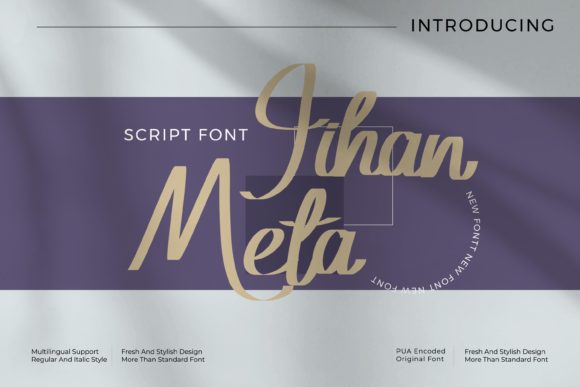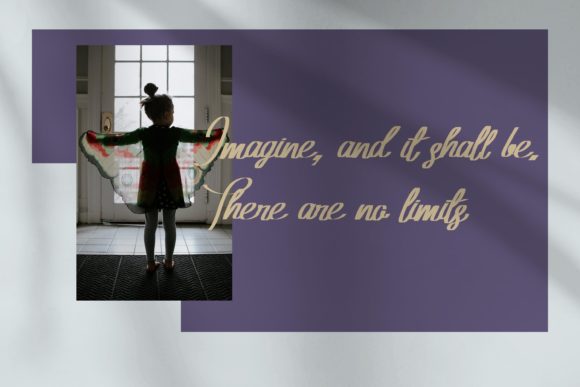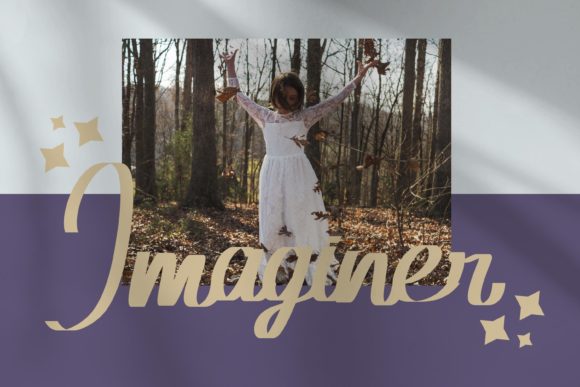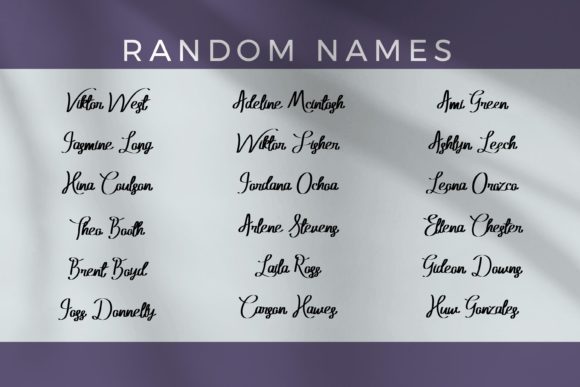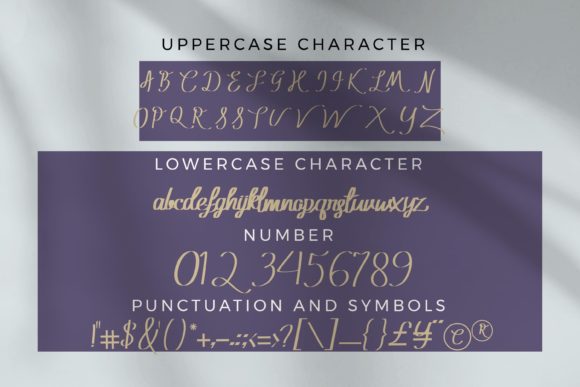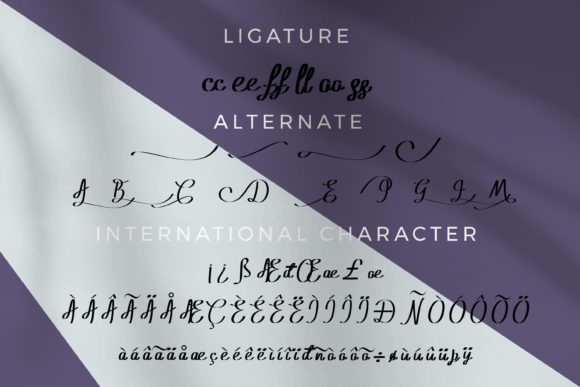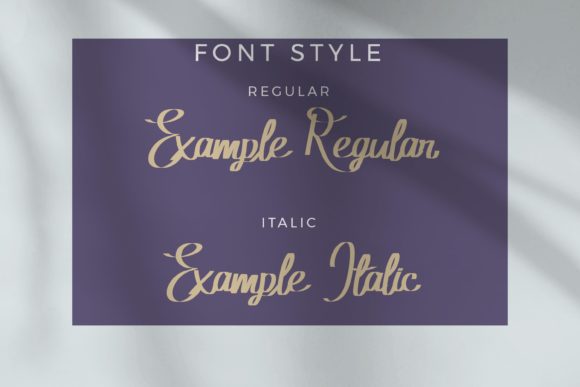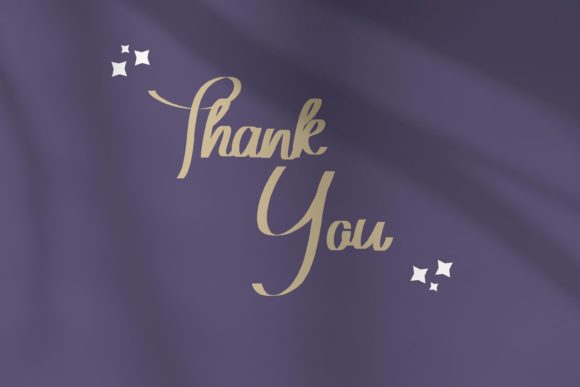
Jihan Meta Font
About Jihan Meta Font
Jihan Meta is a lovely script font featuring charming, playful characters that seem to dance along the baseline. Add this font to your most creative ideas, and notice how it makes them stand out!